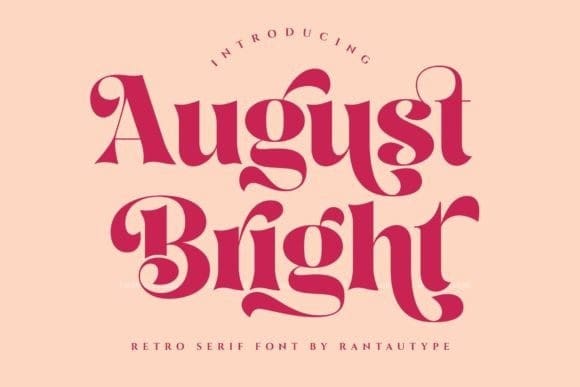
August Bright Font
August Bright Font is a modern and elegant serif font. Perfect for us on your logos, quotes social media, business cards, web designs and so much more.